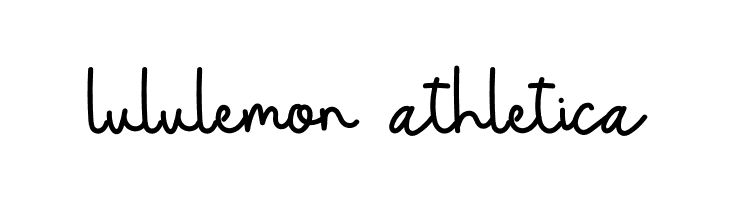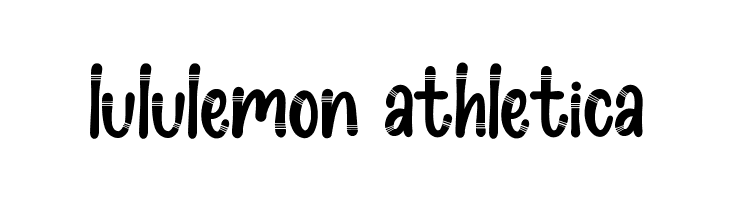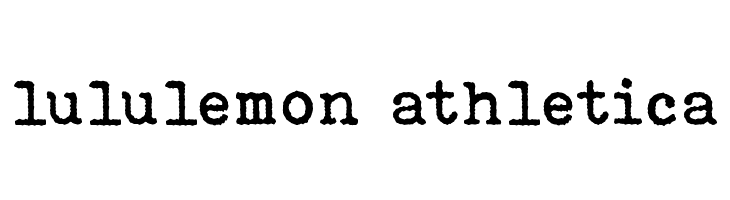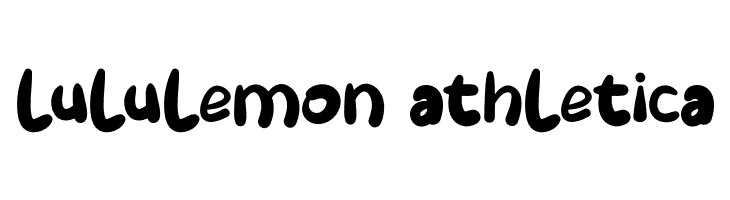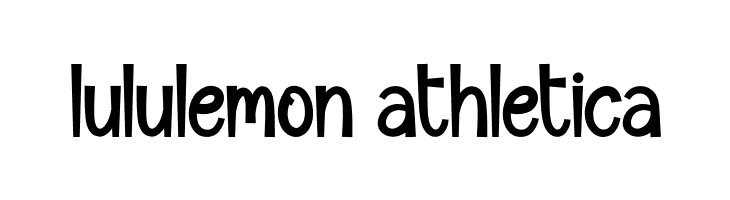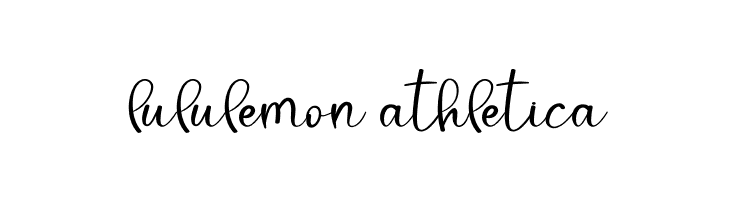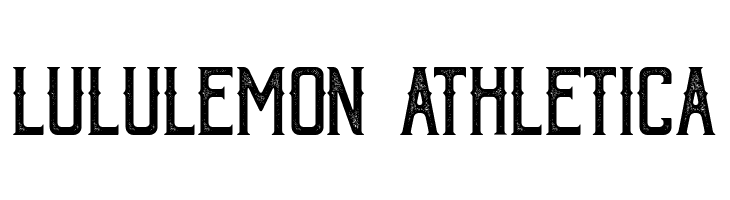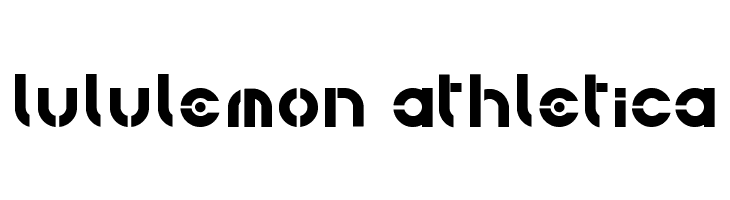
A bold, rounded font with a modern and playful style.
A playful, handwritten font with a bold and whimsical style.
A bold serif font with strong strokes and pronounced serifs, offering a classic yet modern look.
A bold, modern font with unique curves and strong strokes.
A modern, geometric font with rounded edges and uniform stroke width.
A bold, modern font with geometric influences and consistent stroke width.
A bold, italicized font with a dynamic and strong appearance.
A modern, italic font with clean lines and a dynamic feel.
A modern, geometric sans-serif font with clean lines and a minimalist aesthetic.
A sleek, modern, light italic font with smooth curves and a dynamic appearance.